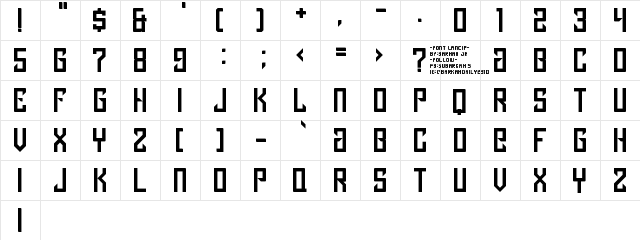
Lancip Regular Font Preview
Lancip Regular
| Designer | Subarkah .S |
Design Context for Lancip Typeface
Lancip takes a measured approach to typography — its balanced proportions and neutral character make it a reliable workhorse for both digital and print work.